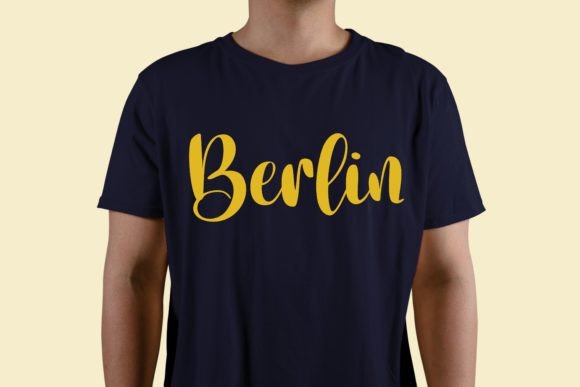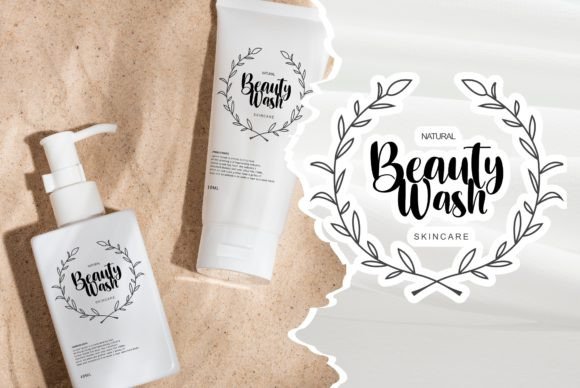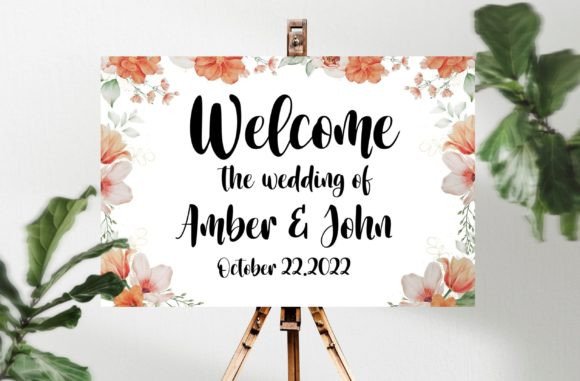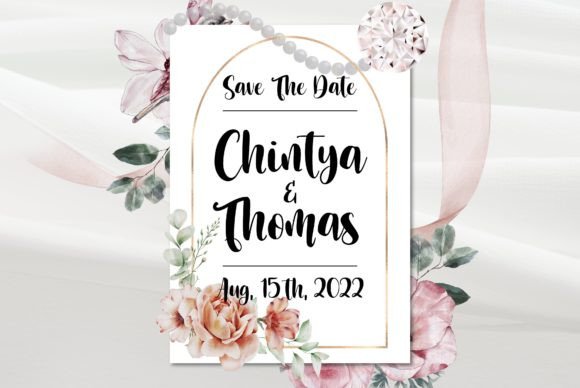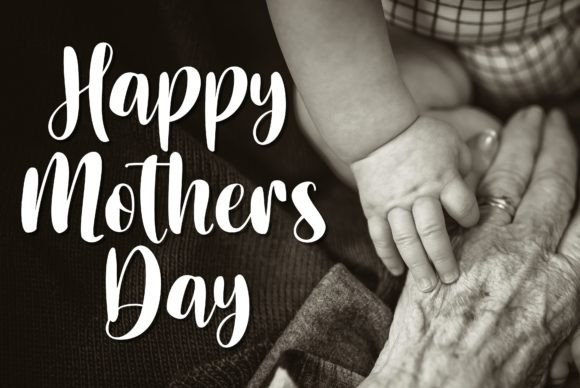
Samantha Font
About Samantha Font
“Samantha” is not just a font; it’s a beautiful handwritten script font designed to enhance your creative projects. With its graceful and elegant character, “Samantha” becomes a valuable asset for various design applications. Whether you’re working on product branding, print-on-demand projects, wedding designs, or any other beautiful design endeavor, “Samantha” has the ability to elevate your work into a gorgeous masterpiece.
The script nature of “Samantha” adds a touch of fluidity and sophistication to your text, making it particularly well-suited for projects that require a sense of beauty and grace. Its handwritten charm brings a personal and authentic feel to your designs.
For product branding, “Samantha” becomes a key element in creating a distinct and memorable visual identity. Its elegant script style has the power to make your product stand out and leave a lasting impression on your audience.
In print-on-demand projects, the beauty of “Samantha” can be harnessed to create eye-catching and visually appealing designs. The font’s ability to convey a sense of elegance makes it a versatile choice for a variety of printed materials.
When it comes to wedding designs, “Samantha” adds a romantic and sophisticated touch to invitations, stationery, and other elements. Its ability to evoke a sense of beauty aligns perfectly with the sentiment of weddings and special occasions.
In essence, “Samantha” is more than just a font; it’s a design tool that brings beauty and elegance to your projects. Let “Samantha” be the script font that transforms your designs into stunning masterpieces, capturing attention and leaving a lasting impression on your audience.